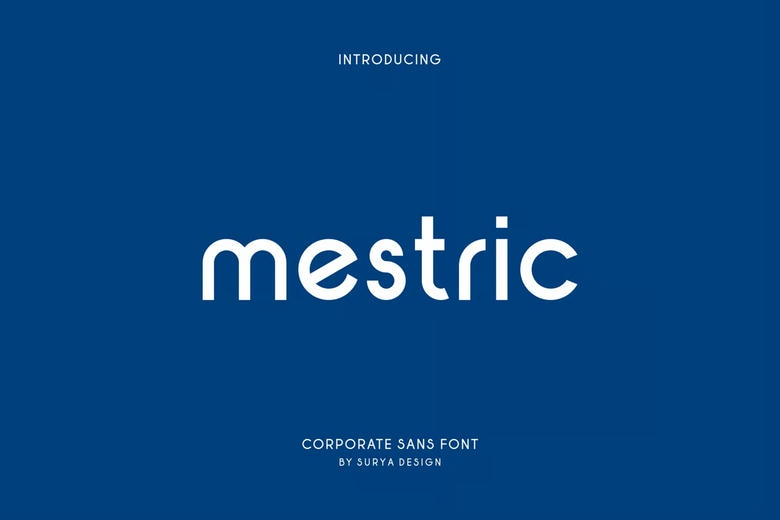
Mestric Font
Mestric Font– Modern Font is a bold and authentic sans serif font. The font is suitable for any branding project like logo, esport, and many more. outstanding in a wide range of contexts.
Mestric Sans Serif Font